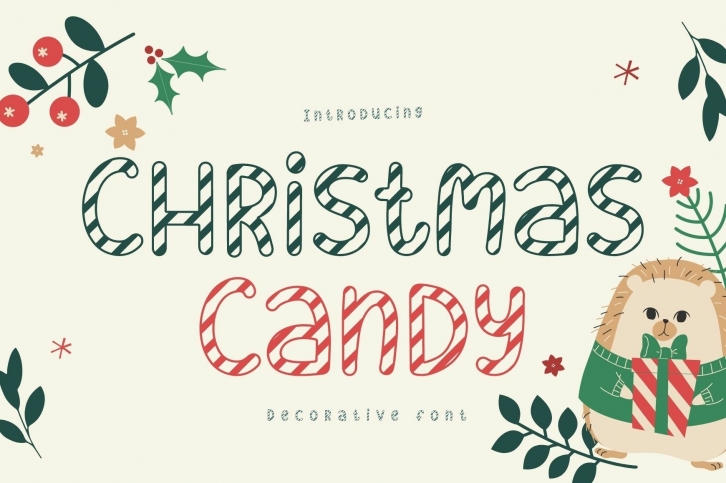
Christmas Candy is a fun decorative is a great font that was designed by Brown Cupple Typeface. Imagine the amount of combinations you can create using this font! The archive is 21.10 MB and it was released on October 12, 2022. Christmas Candy is a fun decorative looks beautiful on wedding invitations, greeting cards, logos, posters, labels, t-shirt designs, logos, business cards and is perfect for use in ink or watercolor works, fashion, magazines, packaging and food menus, children's books and more!